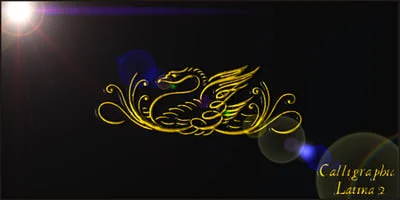
Calligraphia Latina 2 Font
Calligraphia Latina 2 Font is perfect for classical design applications including academic institutions, historical document reproductions, museum exhibitions, classical music programs, Latin literature publications, scholarly journals, formal certificates, and traditional ceremonial materials. This distinguished typeface captures the timeless elegance of Roman calligraphy through authentic letterforms that honor ancient scribal traditions and classical scholarship.
What makes Calligraphia Latina 2 Font exciting is its masterful recreation of classical Latin calligraphy with authentic letterforms that embody the scholarly tradition and cultural heritage of ancient Roman script. The font features traditional proportions and classical flourishes that mirror the elegant penmanship of medieval scribes and Renaissance scholars. Its classical character appeals to institutions that value academic tradition, cultural heritage, and scholarly authenticity.
The Calligraphia Latina 2 Font family includes various classical styles such as Regular, Italic, Bold, and ornamental alternates with traditional Latin flourishes that enhance the scholarly aesthetic. These authentic options provide comprehensive design solutions for creating genuine academic brand identities that celebrate classical learning and intellectual tradition.
This distinguished classical typeface brings authentic Latin heritage to contemporary design projects. Universities and cultural institutions choose Calligraphia Latina 2 Font for its exceptional ability to communicate scholarly authority and classical sophistication. The font's Latin calligraphy inspiration makes it perfect for academic institutions, museums, and cultural organizations that want to convey intellectual tradition and classical heritage. Its elegant character ensures memorable institutional recognition while maintaining the authentic aesthetic that defines exceptional scholarly design work.